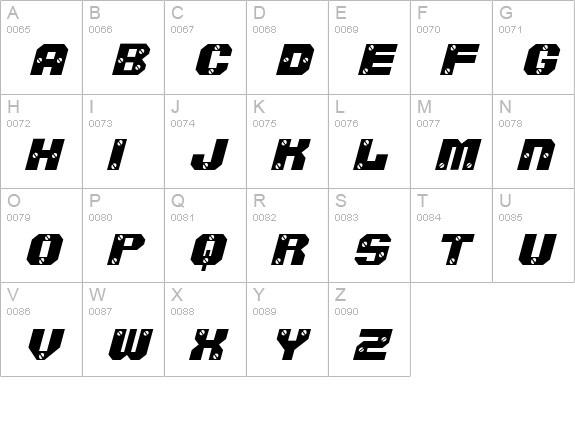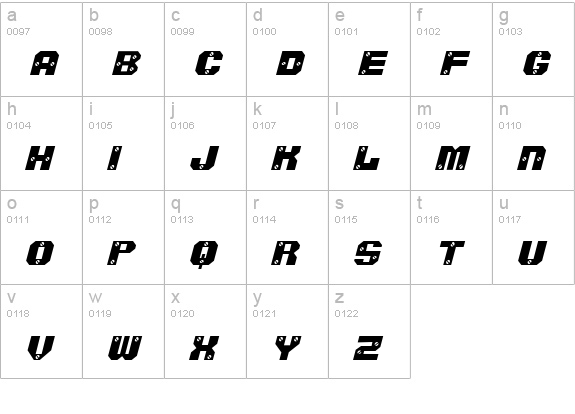
Screwed AOE Oblique Font Details
Screwed AOE Oblique is a distinctive, italic variant in the Screwed typeface family \xE2\x80\x94 well suited to design and typography projects.
Screwed AOE Oblique is a unique and eye-catching font that will instantly add a touch of edginess and modernity to any design project. With its oblique angles and bold, screwed appearance, this font is perfect for those looking to make a bold statement. The letters of Screwed AOE Oblique are intricately designed with a twisted and distorted look, giving them a sense of movement and energy. This font is ideal for headlines, logos, posters, and any other design that needs to grab attention and make an impact. What sets Screwed AOE Oblique apart from other fonts is its versatility. It can be used in a variety of contexts, from urban and street-inspired designs to futuristic and tech-themed projects. This font is a great choice for designers who want to experiment with different styles and push the boundaries of typography. One of the best things about Screwed AOE Oblique is that it is available for free. Yes, you read that right! This font can be freely downloaded at FontsMarket.com, allowing you to use it in your personal and commercial projects without any restrictions. So why wait? Give your designs a unique and contemporary twist with Screwed AOE Oblique. Download it for free at FontsMarket.com and unleash your creativity today!